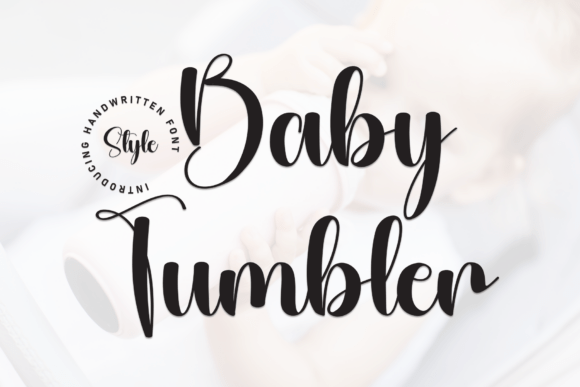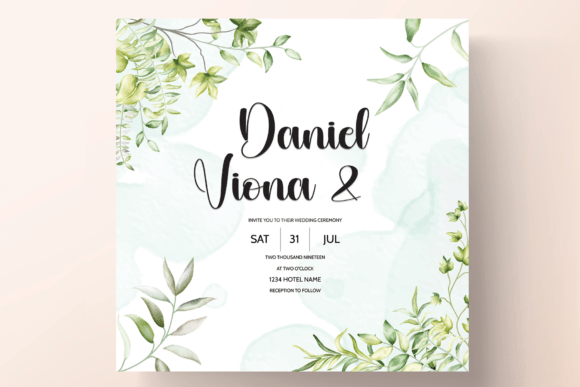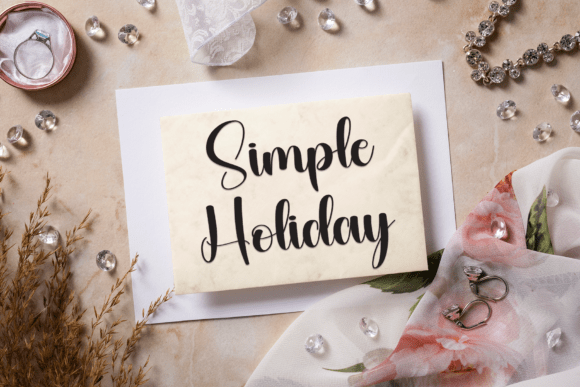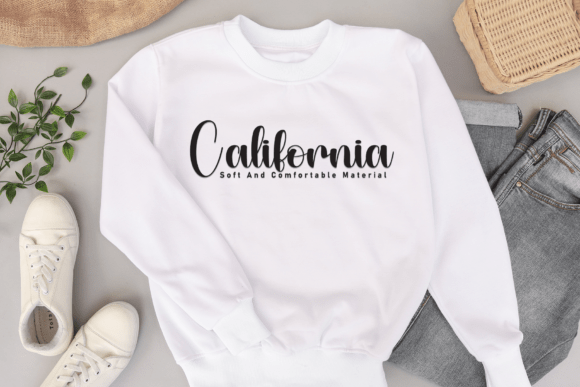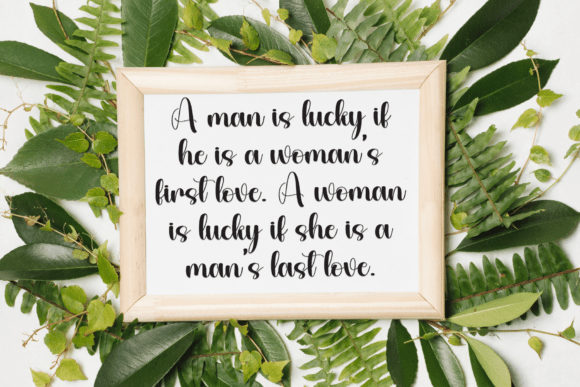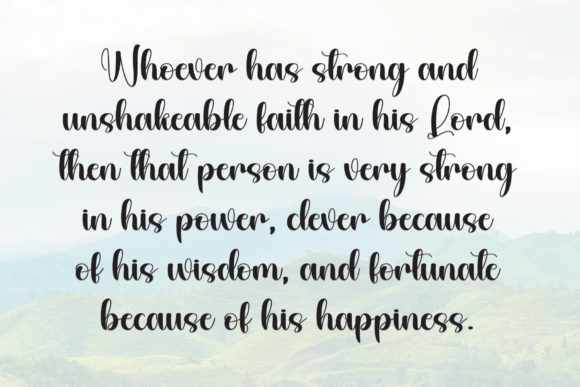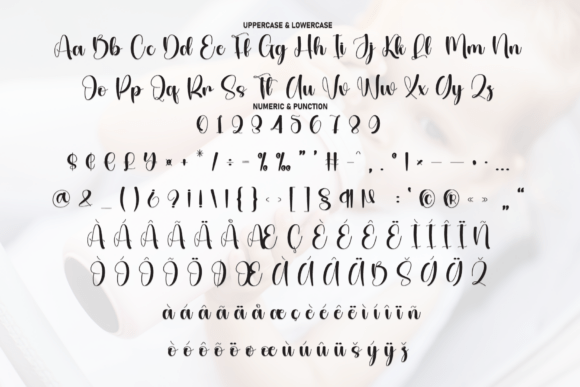
Discover the Joy of Handwritten Charm: Baby Tumbler Font
Have you ever been rummaging through your grandma’s attic, unearthing old love letters and vintage postcards, and suddenly, you’re struck by the beauty of handwritten fonts? The way the ink bleeds, the imperfections, and the character that comes with it? That’s exactly what inspired the creation of the lovable Baby Tumbler Font. This charming handwritten font is designed to bring a touch of sweetness and friendliness to your designs.
Whether you’re crafting wedding invitations, greeting cards, or any other design that needs a playful touch, Baby Tumbler Font is the perfect choice. Its adorable characteristics will infuse joy and personality into your creations, making it a valuable asset for designers who want to stand out from the crowd.
Baby Tumbler Font Key Features
- Font Style: A playful, cursive font designed specifically for baby-related products such as tumblers, mugs, and other ceramics.
- Unique Characteristics: Features a hand-drawn, whimsical design with subtle texture and imperfections, giving it a unique, handmade feel.
Baby Tumbler Font Review
Overall, I think Baby Tumbler Font is a cute and playful script font that can work well for certain projects, especially those that require a fun and whimsical touch. ✨ It’s great for creating eye-catching titles, headings, and short paragraphs where you want to convey a sense of friendliness and approachability. The font’s irregularities and imperfections add to its charm, making it perfect for designing for children’s products, nursery decor, or family-themed merchandise.
- Cute and playful script style
- Perfect for creating eye-catching titles and headings
- Irregularities and imperfections add to its charm
- Works well for designing for children’s products, nursery decor, or family-themed merchandise
- May not be suitable for body text due to its irregularities
- Can be difficult to read at small font sizes
- May not be as versatile as other fonts for more formal or professional projects
Overall, I think Baby Tumbler Font is a great addition to any designer’s toolkit, but it’s essential to use it judiciously and in the right context. With its unique charm and playfulness, it can add a lot of personality to your designs, but it may not be the best choice for every project.
Getting the Most Out of Baby Tumbler Font
Here are some tips for getting the most out of Baby Tumbler Font:
- Pair Baby Tumbler Font with other fonts to create a visually appealing combination.
- Use Baby Tumbler Font for headings or titles to add a touch of whimsy to your design.
Baby Tumbler Font is commonly used for:
- Children’s products and packaging.
- Party invitations and decorations.
- Children’s books and educational materials.